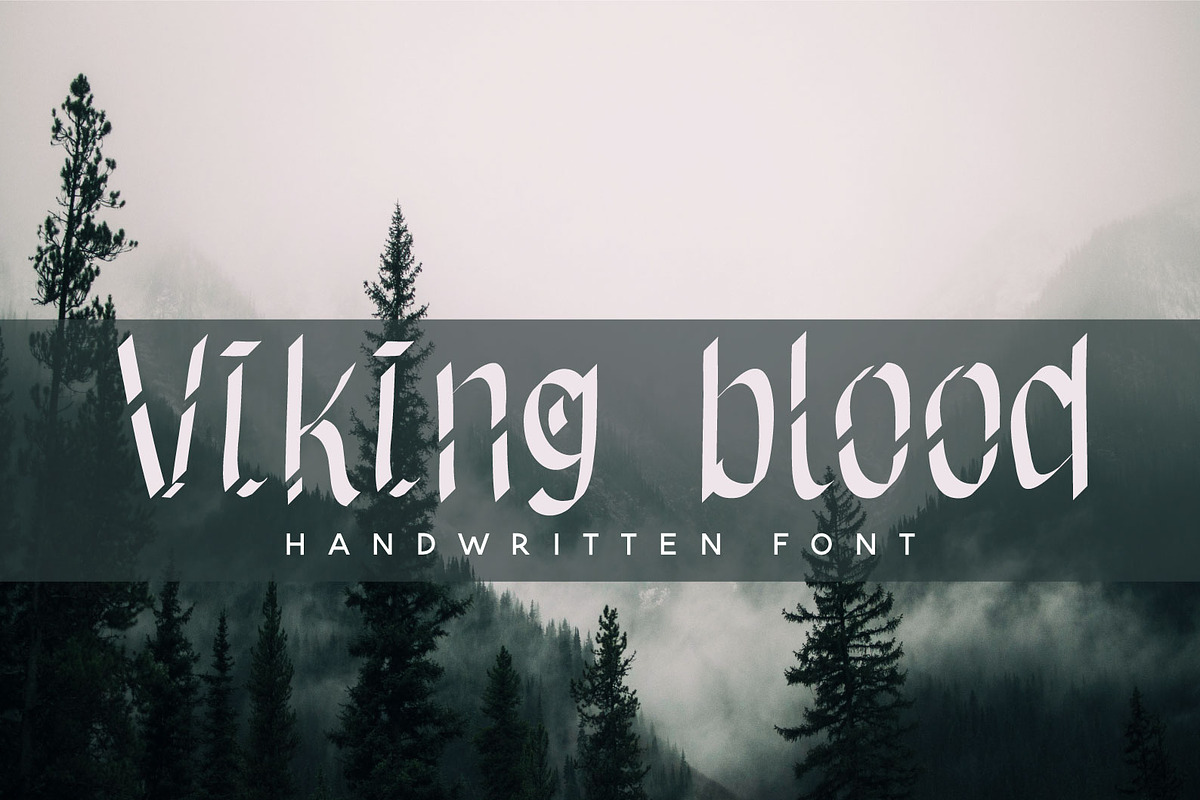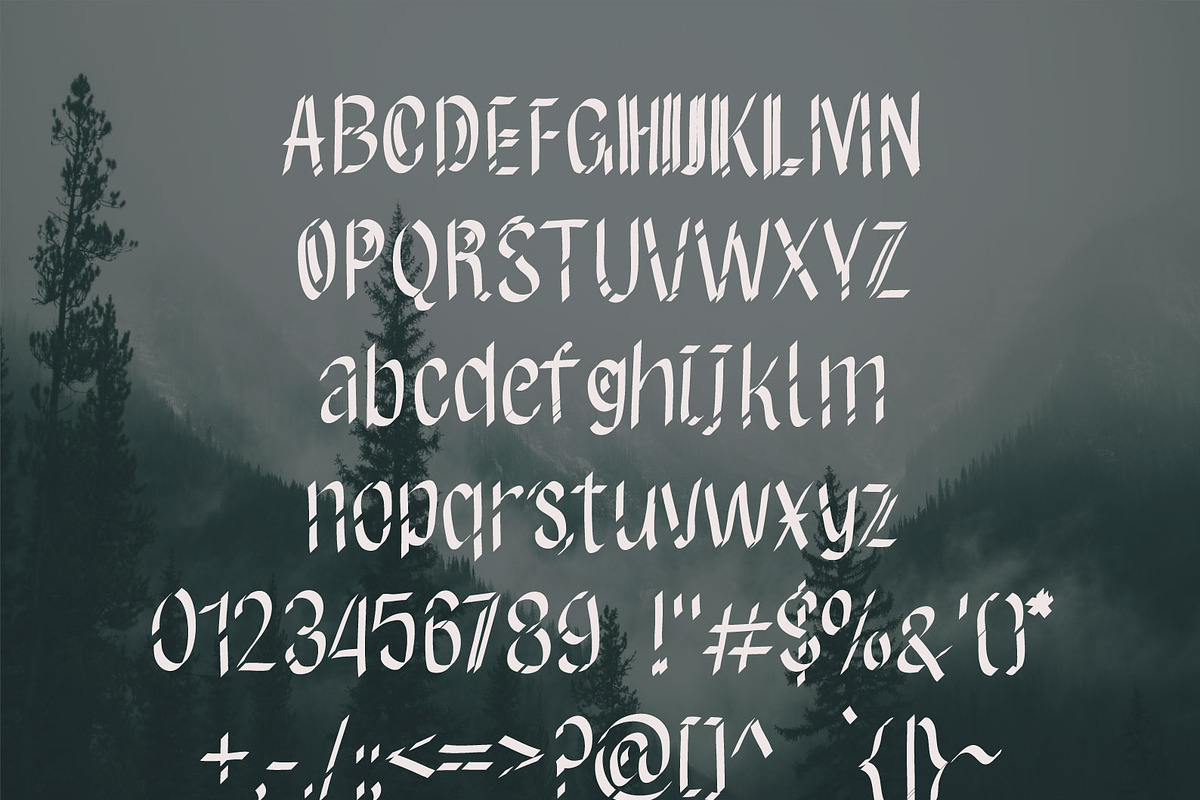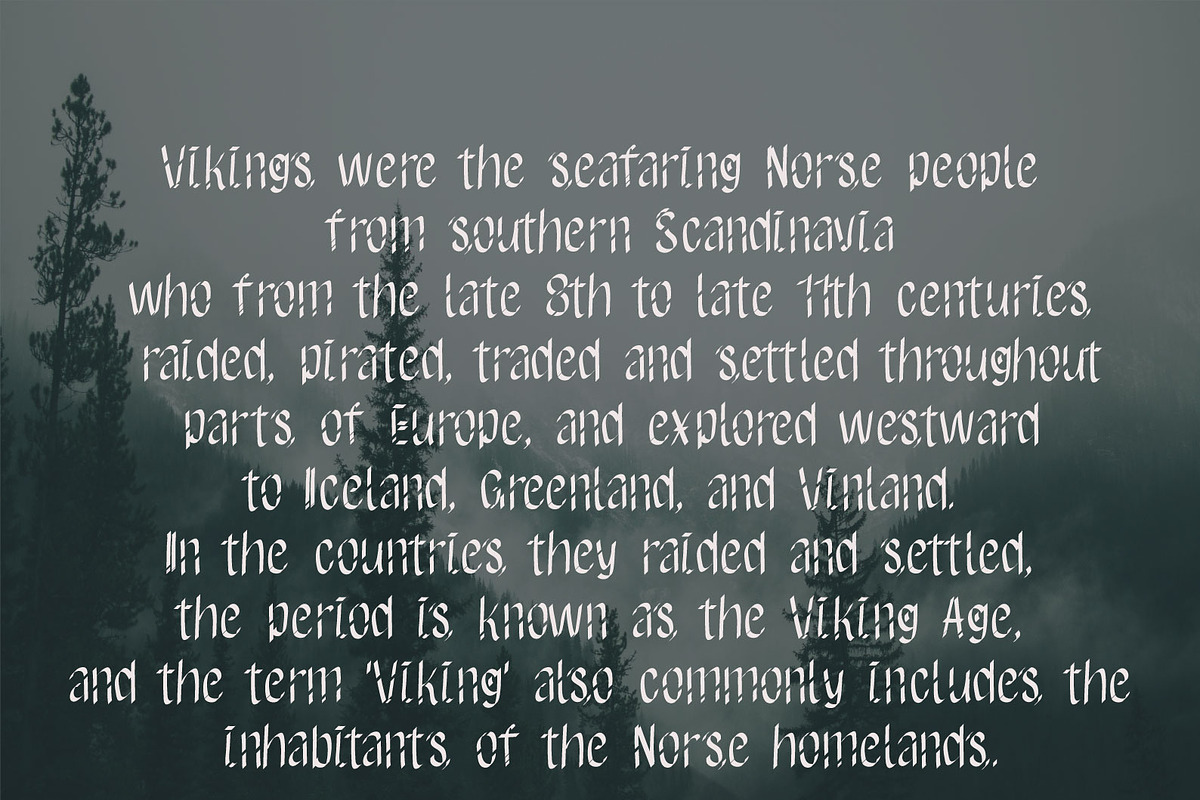
Viking Blood - Handwritten Font
VIKING BLOOD FONT
This font is perfect for: logos, branding, wedding invitations, business cards, greeting cards, posters, magazines, social media, planner prints and websites.